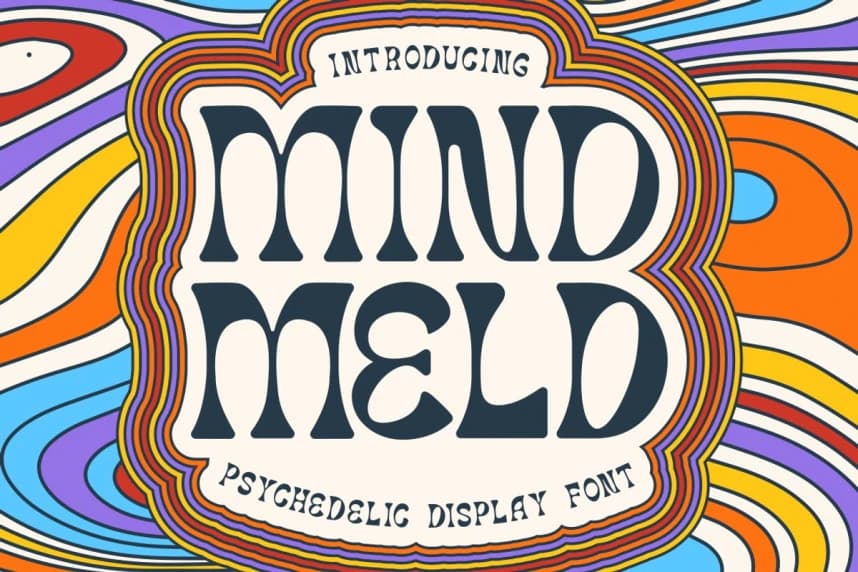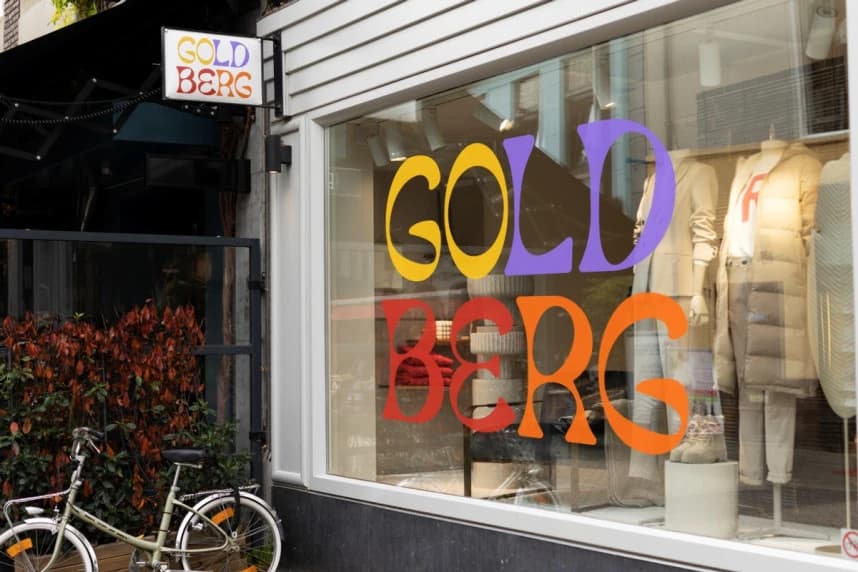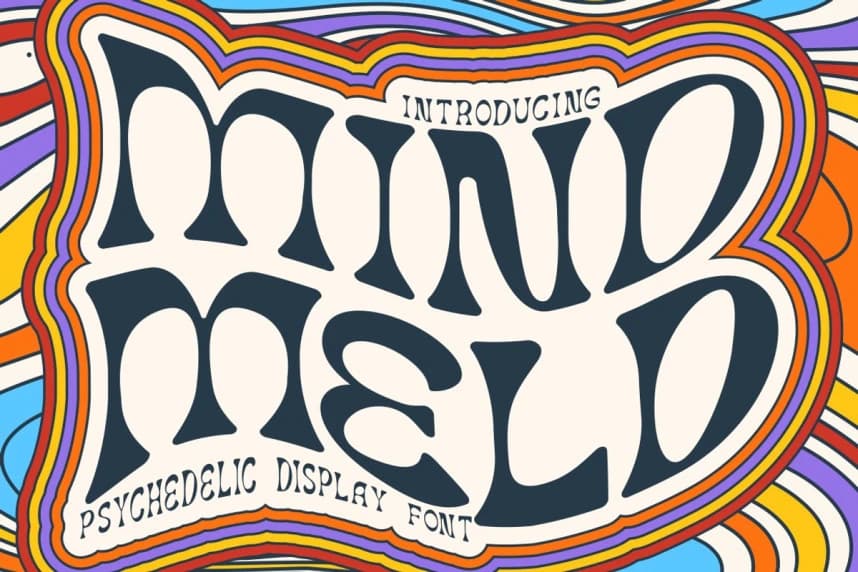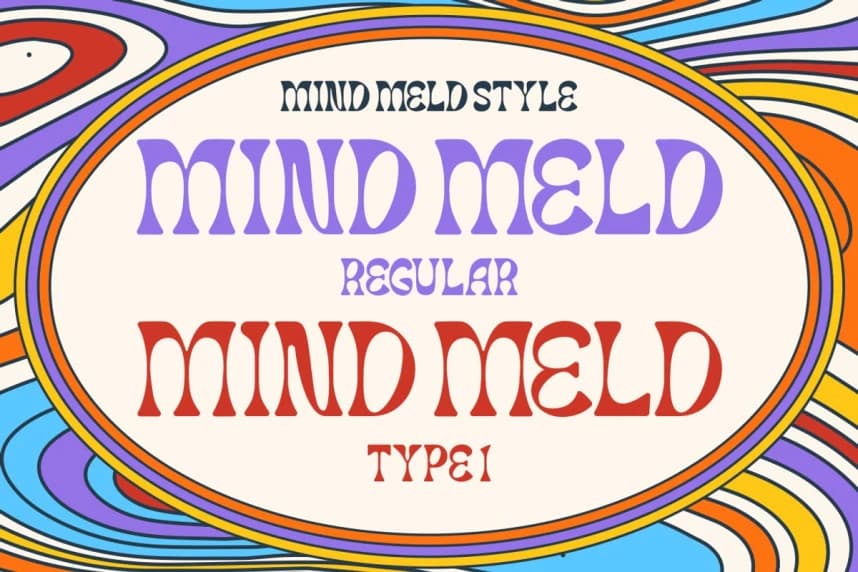
Mind Meld Font
Mind Meld Font - Psychedelic Display Font, a throwback to the groovy vibes of the 80s, perfect for capturing the essence of retro design. This font is a visual symphony that speaks to the soul of vintage enthusiasts and modern-day creatives alike.